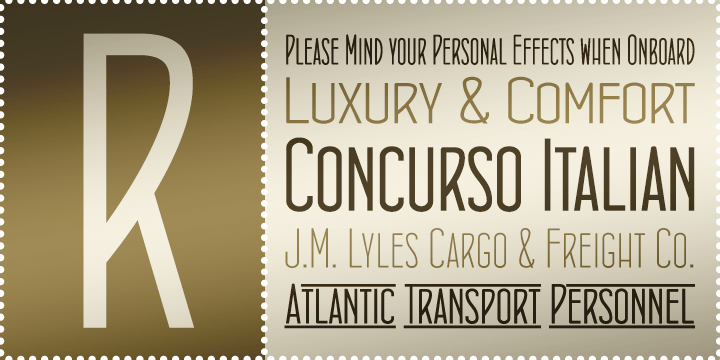
Concurso Italian BTN
Concurso Italian BTN is a stylized display family with a crisp retro-modern attitude and a distinctly theatrical sense of structure. Related to the Concursico line, it carries a similarly constructed personality but expands into a more expressive and versatile display system. Its mix of standard, oblique, lined, wide, and condensed styles gives it strong visual range for posters, branding, packaging, editorial layouts, signage, and title work. Concurso Italian BTN feels structured yet lively, making it a strong choice for designs that want a graphic, character-rich voice with both vintage flair and modern edge.